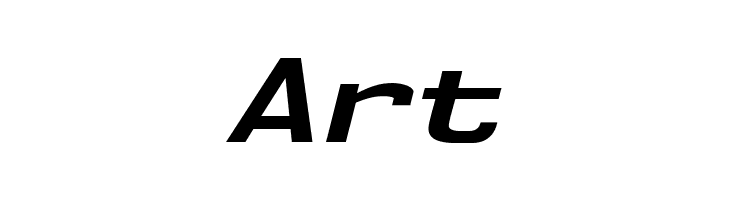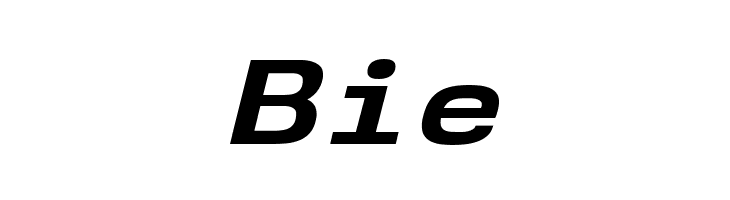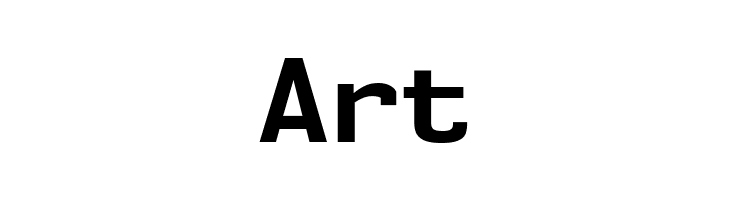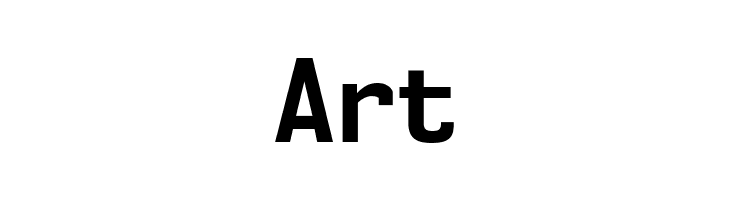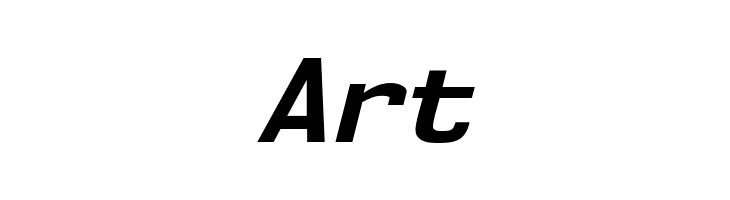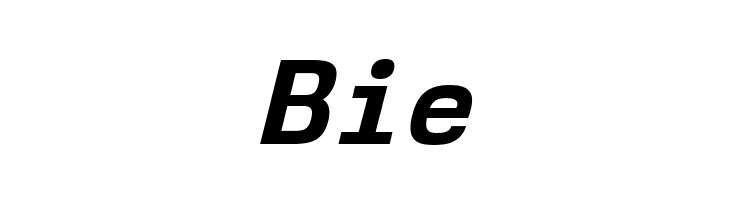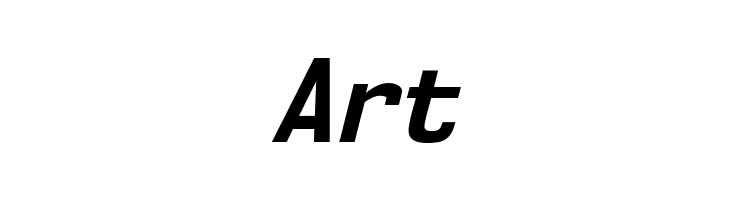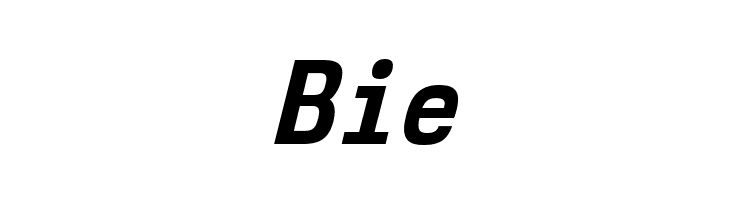
A bold, italicized monospaced font with a modern, dynamic style.
A bold, monospaced font with a modern, utilitarian design ideal for technical use.
A bold, italicized monospaced font with a modern and structured appearance.
A bold, monospaced typeface with uniform character width and strong readability.
A bold, italicized monospaced font with a modern and structured design.
A bold, monospaced font with a clean and structured design, ideal for technical and professional use.
A bold, italicized monospaced font with a modern and sleek design.
A bold, monospaced font with a clean and modern design.
A bold, italic monospaced typeface with a modern and structured design.
A bold, modern font with geometric and dynamic styling.